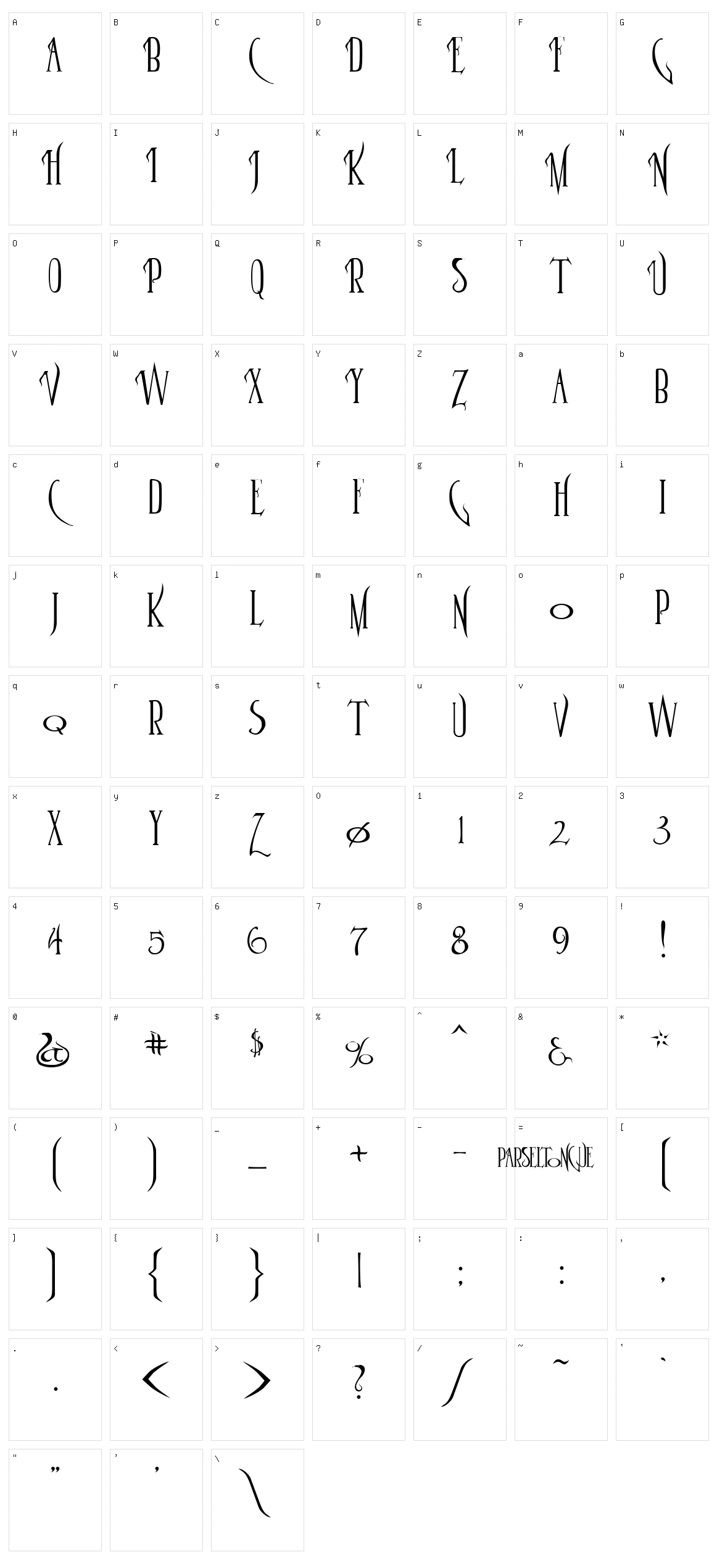
Hello! Thanks so much for checking out "Parseltongue," an original font inspired by J.K. Rowling's Harry Potter books. The serpentine aspects of the font and the font's title have to do with the second book of the series, _The Chamber of Secrets_.
I hope you enjoy this Art Nouveau-ish Potterly font. A word to the wise: it definitely works best for display text.